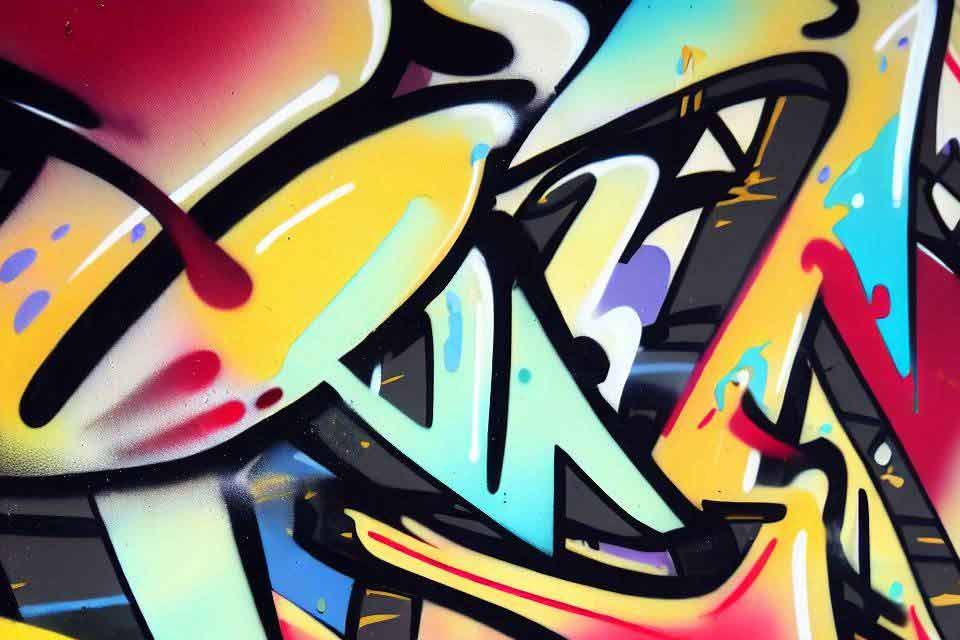
25 Graffiti Google Font Ideas For Edgy Street Art Themes
If you’ve ever been captivated by the gorgeous street art and graffiti adorning urban walls then today’s article is for you! Graffiti fonts are the perfect choice for any design where you want to create a sense of edginess, power, personality, and raw urban style! And once again Google Fonts comes to the rescue with the coolest free graffiti fonts around (which you can also use in Google Docs)!
For this post, I have gone through the Google Fonts Library and hand-picked some of the best Google graffiti fonts I could find. Each font has been designed by top-notch designers and each font is free to use.
What Are Graffiti Fonts?
Graffiti fonts are a unique style of typography that was inspired by the bold and expressive urban artwork found on city walls. These fonts capture the energy, rebelliousness, and artistic flair of graffiti street art and have a raw and organic feel to them.
Grafitti fonts are incredibly bold and exaggerated and are often decorated with drips, splatters, and other graffiti-inspired decorations. They are designed to copy the spontaneous nature of graffiti writing, infusing designs or text with an edgy urban aesthetic.
The Best Google Graffiti Font Ideas
And now, let’s jump in and take a look at the best Google Fonts that you could use in your graffiti-inspired designs!
Nosifer
Nosifer is a cool graffiti font that mimics the look of dripping paint so it works well in urban designs where you want to create the feeling of spontaneous urban art. You will sometimes see the Nosifer Google Font being used in Halloween designs where designers are trying to create a creepy or scary aesthetic.
Rock Salt
Rock Salt is a graffiti-style Google font that resembles spontaneous writing that you might see on a weathered urban wall. It has an organic and rustic feel to it that has a unique character.
Permanent Marker
The Permanent Marker Google graffiti font replicates the look of the bold strokes of a permanent marker. It has a strong and confident presence that can be used to create a graffiti look and feel.
Calligraffiti
Calligraffiti combines the elegance of traditional calligraphy with the urban style of graffiti. It has flowing strokes with a sophisticated edginess.
Rubik Dirt
Rubik Dirt captures the look of rugged and weathered lettering that has a distressed look and feel. It gives text a gritty feel that can evoke a sense of urban decay.
Chokokutai
Chokokutai is a graffiti-style font that draws its inspiration from Asian calligraphy, blending traditional typography with an urban twist. It has bold and angular letters that have an intriguing look to them. A great option for logos and headings!
Ruslan
Ruslan is a cool graffiti font that has a unique look that can be used to convey a feeling of urban culture and style.
Emblema One
Emblema One is a stencil font that can be used in graffiti-inspired designs to create distinct and unique urban designs.
Plaster
Plaster is another Google font that has a stencil appearance so it could work well in designs that need a more “formal” graffiti feel.
Wallpoet
Just like “Plaster”, Wallpoet is another graffiti stencil font that captures the spirit of urban stencil graffiti.
Gajraj One
Gajraj One is a unique Google font that really stands out with thick, bold lines and letter shapes.
Rubik Distressed
Rubik Distressed is a cool graffiti-style font that has a worn-out or distressed look. It has a rugged, textured appearance that has a grunge feel to it.
Knewave
Knewave is bold and distinctive. It has an organic hand-drawn feel to it that can be used in urban design to create a contemporary look.
Climate Crisis
Climate Crisis is a chunky graffiti font that has a strong look that is very unique. Its rounded letters and bold look are incredibly eye-catching and unique.
Conclusion
As you have seen, there are few really awesome free graffiti Google fonts that you can use in graffiti-inspired urban-style designs. Ranging from bold and rebellious to more flowing and energetic. And keep in mind, that you can use these graffiti fonts on Google Docs as well if you would like to!